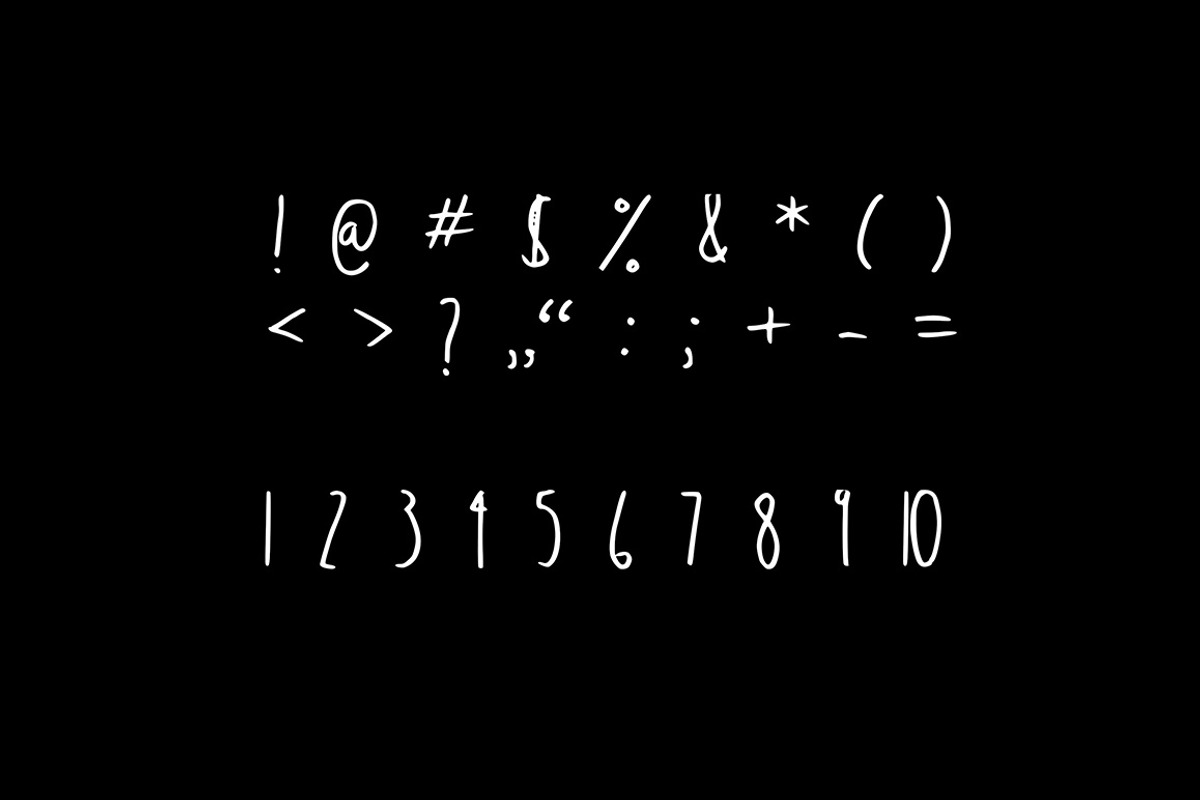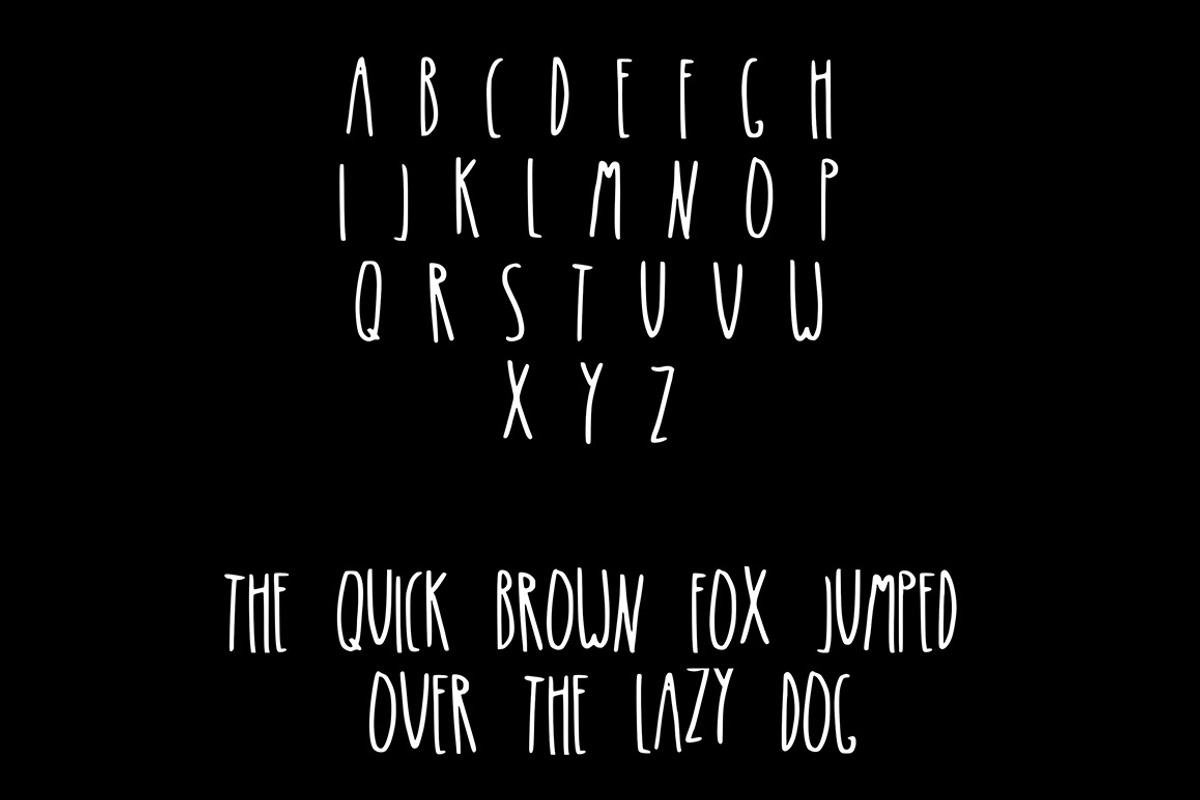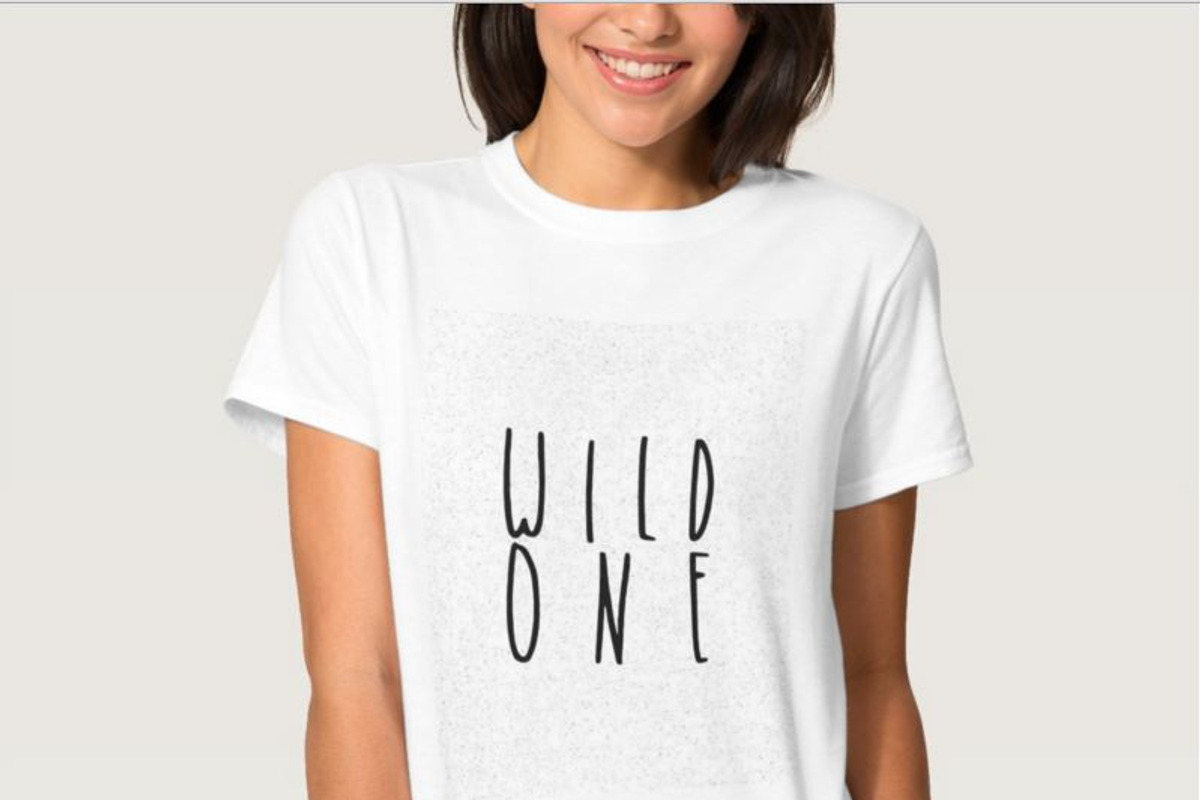
PROWLING A hand drawn font
PROWLING A hand drawn font by Salt & Pepper is a font selected for branding, posters, packaging, typography.
Why PROWLING A hand drawn font is worth a look
PROWLING A hand drawn font by Salt & Pepper fits naturally into Branding, posters, packaging, typography.